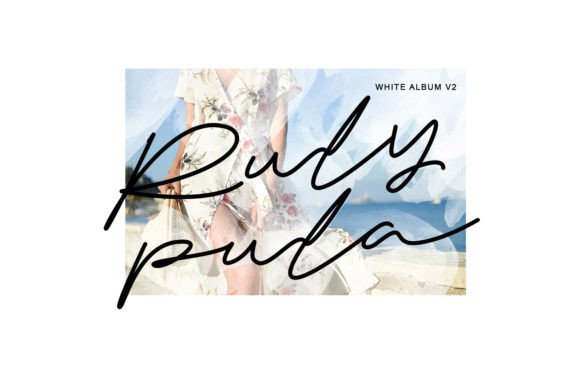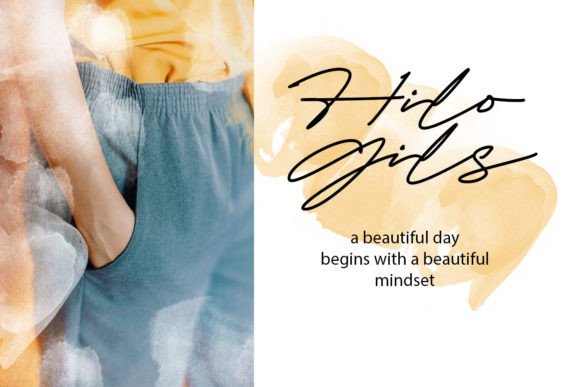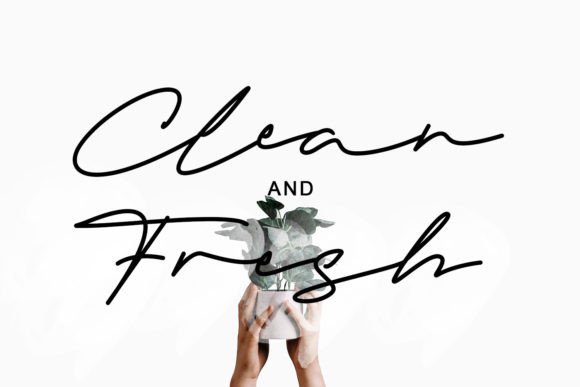
Introduction to Gils Cadyla Font
Have you ever found yourself stuck in a creative rut, searching for that perfect font to elevate your project from ordinary to extraordinary? It’s a feeling designers know all too well, and it’s exactly why we’re excited to introduce you to the Gils Cadyla Font – a stunning signature script font that’s sure to take your creative project to the next level.
Whether you’re working on a logo design, crafting social media posts, or writing movie titles, the Gils Cadyla Font is an excellent choice. Its high-quality design makes it perfect for both short and long texts, and its versatility allows you to use it as a primary or secondary font with signature or script typeface. Plus, with its transparent background, you can easily integrate it into any design without worrying about background distractions.
Key Features of Gils Cadyla Font
- High-quality design resource ideal for creative projects and personal use.
- Features a unique, modern design style with a transparent background, allowing for seamless integration into various design elements.
- Designed to work well in a variety of contexts, from digital displays to print materials.
- Perfect for designers looking for a high-quality, versatile font to enhance their creative projects.
Honest Review: Gils Cadyla Font
I recently stumbled upon the Gils Cadyla Font, a free download that caught my attention for its high quality and unique design. As a designer, I’m always on the lookout for valuable design resources, and this font didn’t disappoint.
- Its elegant script style makes it perfect for creative projects, adding a touch of sophistication and class.
- The transparent background allows for seamless integration with any design, giving me the flexibility to experiment with different backgrounds and textures.
- The font’s versatility extends to various applications, from print to digital media.
- The font may not be suitable for large-scale text due to its script style, which can become difficult to read at larger font sizes.
- As a free download, I was expecting a few more variations or styles to complement the main font.
Overall, the Gils Cadyla Font is a great addition to any designer’s toolkit. Its high quality and unique design make it a valuable resource for creative projects. While it may have some limitations, I appreciate its versatility and ease of use. I would definitely recommend it to fellow designers looking for a stylish and elegant font for their next project.
The Gils Cadyla Font is ideal for creating logos, business cards, social media graphics, and presentations. Its high-quality design makes it perfect for various creative projects, from personal to professional use.